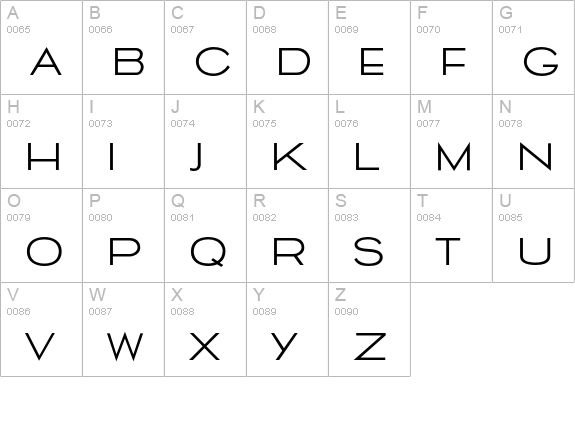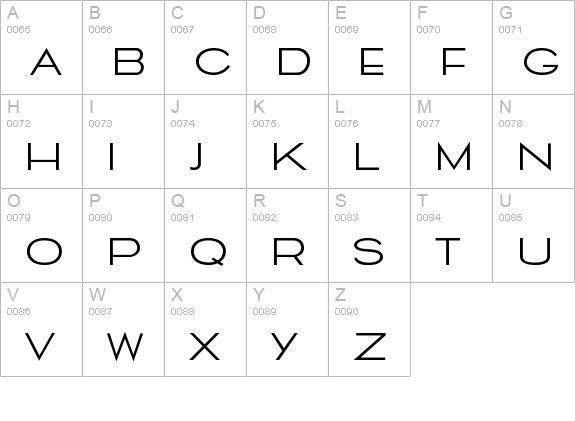
CassandraEF-Regular Font Details
CassandraEF-Regular is the standard, neutral variant in the CassandraEF typeface family \xE2\x80\x94 well suited to general body text, paragraphs, and standard typographic work.
CassandraEF-Regular is a stylish and versatile font that exudes elegance and sophistication. With its clean lines and modern appeal, this font is perfect for a wide range of design projects, from branding to editorial design. Whether you're creating a sleek logo or designing a sleek website, CassandraEF-Regular is sure to make a lasting impression. What's even better is that CassandraEF-Regular is available for free download at FontsMarket.com. This means you can easily access this stunning font and use it in your projects without any cost. Don't miss out on this opportunity to enhance your designs with the timeless beauty of CassandraEF-Regular. Download it now and let your creativity shine!